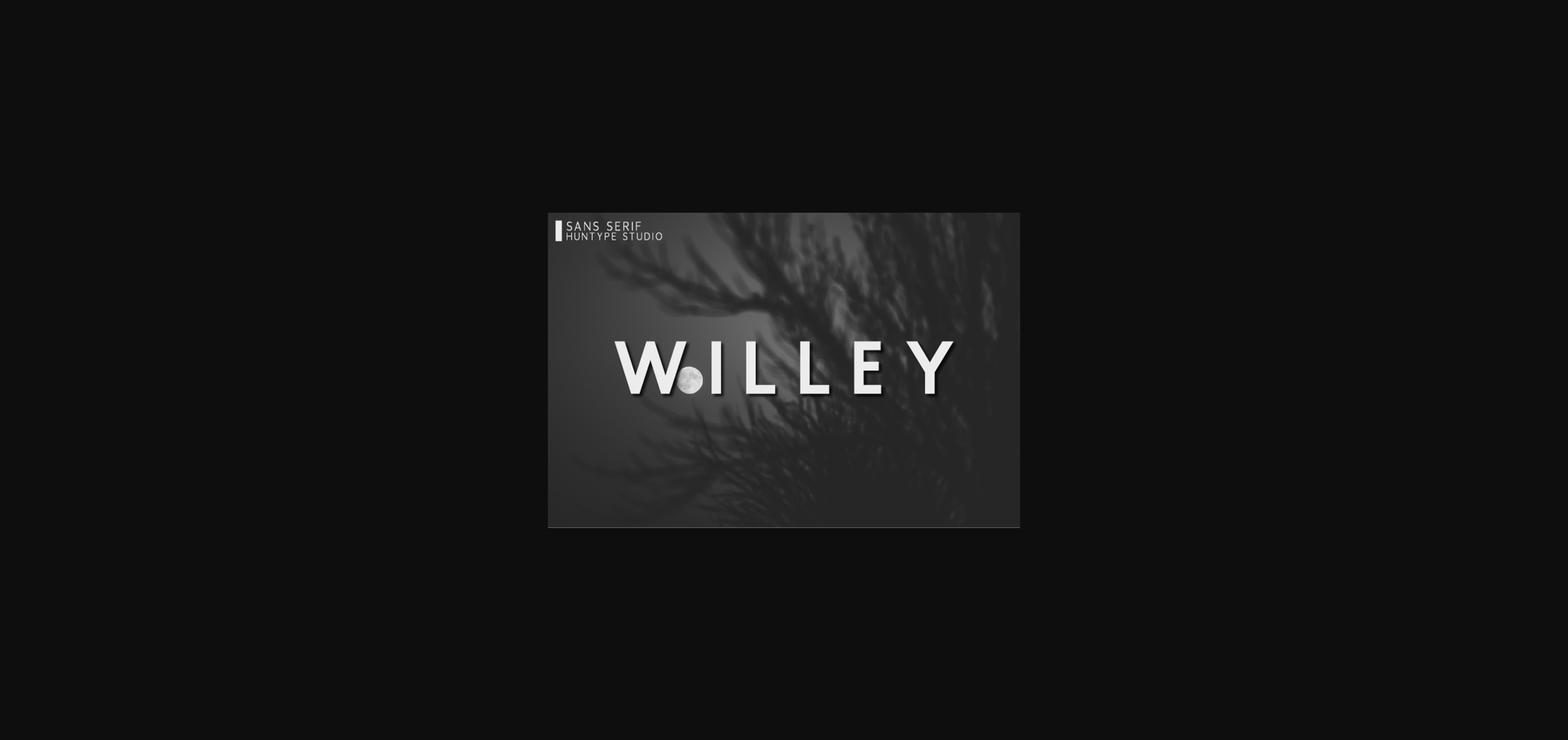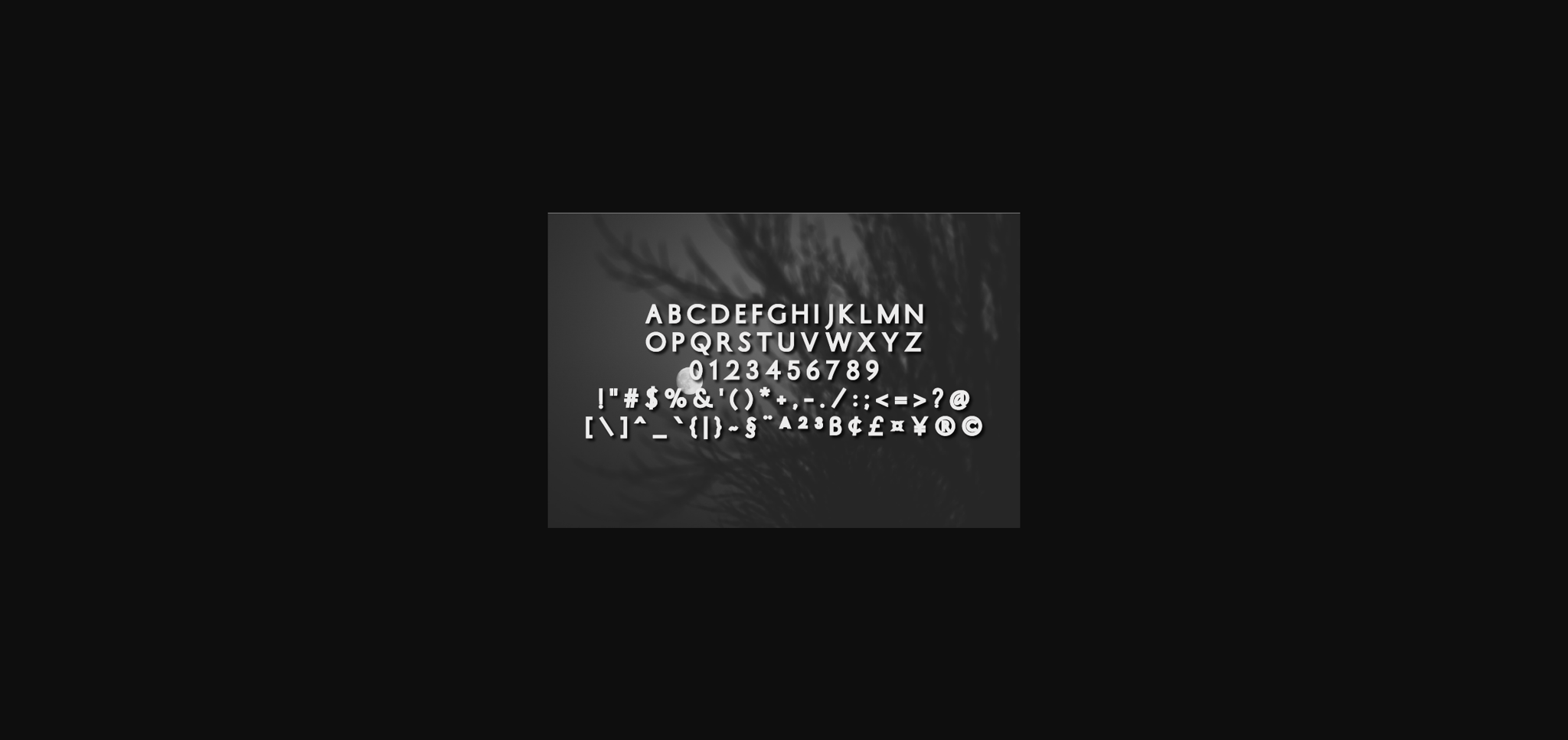
Willey Font
About Willey Font
Willey is a modern and classy sans serif font. It will look outstanding in any context, whether it’s being used on busy backgrounds or as a standalone headline!